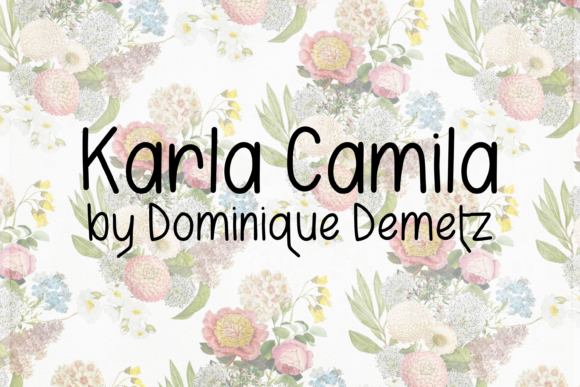
Immerse yourself in the world of elegance and sophistication with the Karla Camila Script Font, a captivating creation by Dominique Demetz. This exquisite font, with its enchanting swirls and graceful curves, is a testament to the beauty of handwritten artistry. Step into a realm where your words dance with charm and distinction, leaving an indelible mark on the hearts of your readers. Whether you're a passionate designer, a creative entrepreneur, or a lover of all things beautiful, the Karla Camila Script Font is your gateway to a world of endless possibilities.
With its fluid strokes and organic flow, the Karla Camila Script Font possesses an innate ability to evoke emotions and convey messages with unparalleled depth and sincerity. Its meticulously crafted characters, each a unique masterpiece, emulate the natural rhythms of human handwriting, instilling a sense of authenticity and intimacy into your designs. Whether you're crafting a heartfelt letter, a captivating social media post, or a stunning website, the Karla Camila Script Font will transform your words into works of art, captivating your audience with its undeniable allure.
Discover the myriad of creative applications that await you with the Karla Camila Script Font. Unleash your imagination and let your designs flourish in the realm of elegance and grace. Adorn your wedding invitations with a touch of timeless romance, craft логотипы that exude sophistication and professionalism, or design social media graphics that radiate warmth and charm. The Karla Camila Script Font is your versatile companion, adapting seamlessly to a symphony of creative endeavors.
Embrace the power of the Karla Camila Script Font and elevate your designs to new heights of beauty and distinction. Let your words dance with elegance, your messages resonate with sincerity, and your creativity soar beyond limits. Experience the transformative power of this exquisite font today and embark on a journey of artistic exploration like never before.